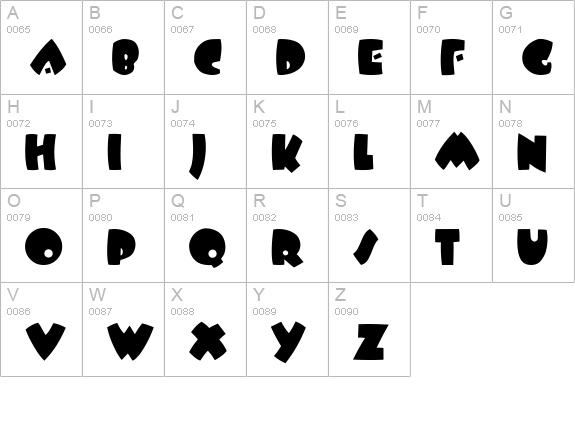
BeesWax Font Details
Introducing BeesWax font, a charming and versatile typeface that exudes warmth and character. With its handcrafted aesthetic and unique details, BeesWax is perfect for adding a touch of whimsy to your design projects. Whether you're creating invitations, branding materials, or social media graphics, this font will bring a playful and inviting vibe to your work. But the best part? BeesWax font is completely free to download at FontsMarket.com! Yes, you read that right – you can get your hands on this delightful font without spending a dime. So why wait? Add a touch of sweetness to your designs with BeesWax font today!